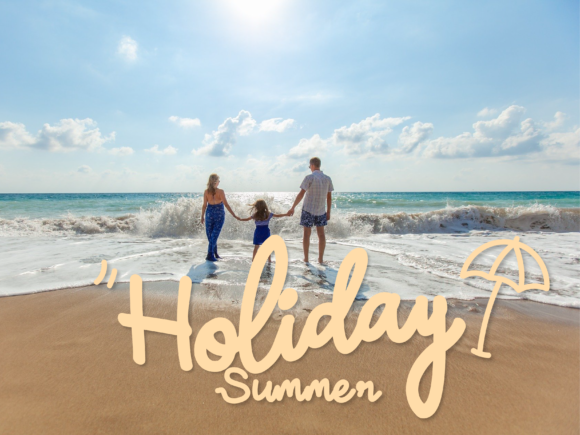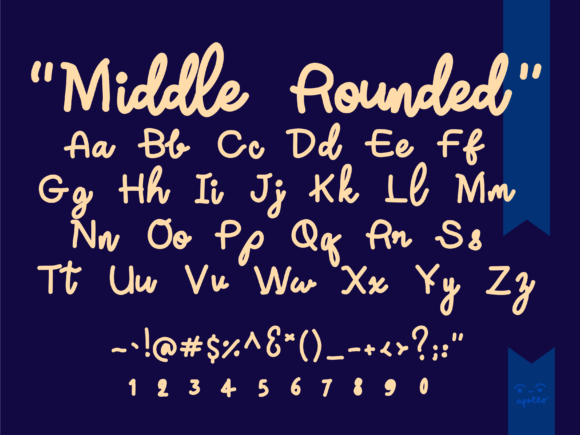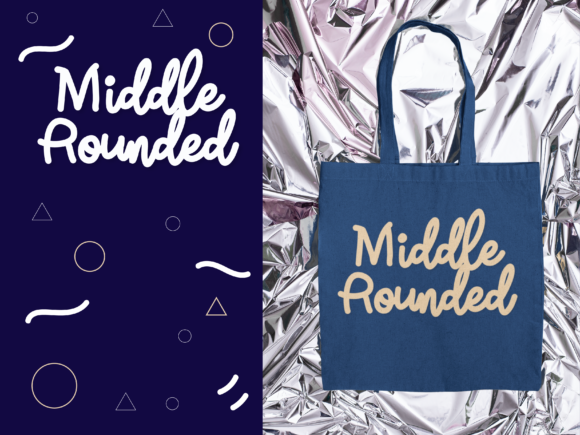
Introduction to Middle Rounded Script Font
Middle Rounded Script is a beautiful handwritten font.
This versatile script font has a wide spectrum of applications ranging from greeting cards to headlines and is guaranteed to add a romantic feel to your next project .